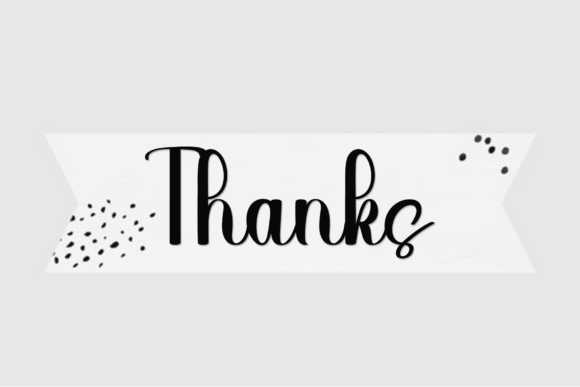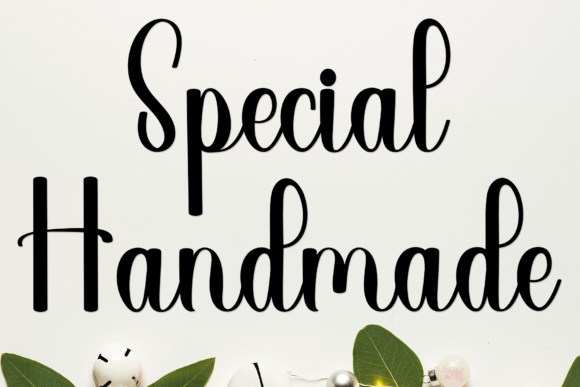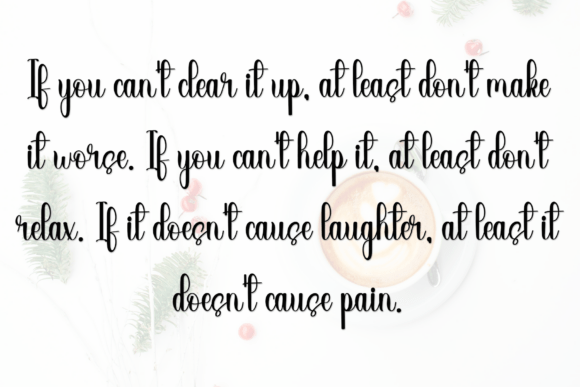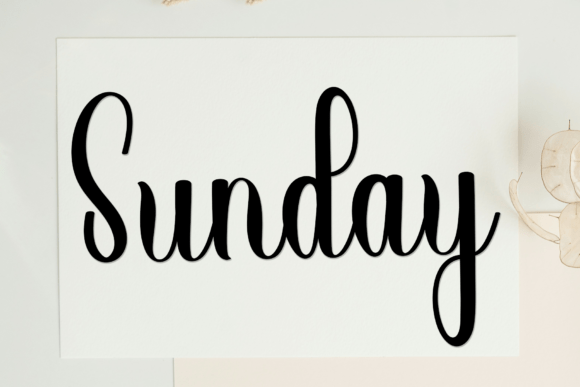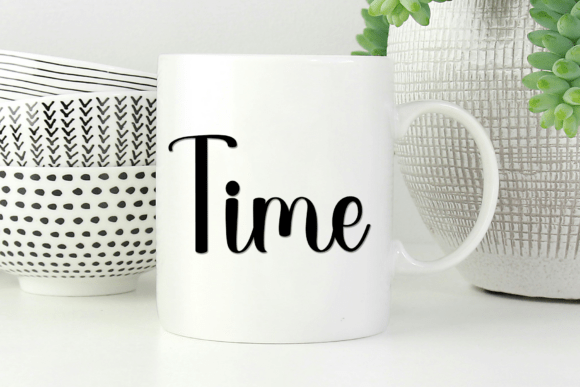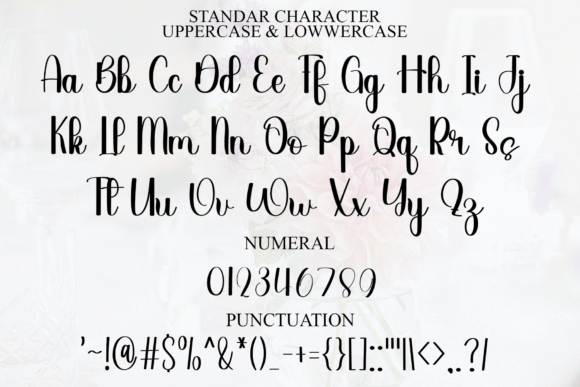
Introducing Enchanting Font: Elevate Your Designs with Elegance and Sophistication
In the world of typography, few fonts manage to capture the essence of natural calligraphy while exuding a sense of sophistication and professionalism. Enchanting, a modern handmade font, achieves this delicate balance with remarkable finesse. Its unique blend of elegance and intimacy makes it an ideal choice for designers and crafters looking to add a touch of luxury to their creations.
The Characteristics of Enchanting Font
Enchanting Font is distinguished by its tall, graceful ascenders and a rhythmic, flowing baseline that perfectly captures the rhythm of natural calligraphy. This harmonious combination lends a soft, poetic touch to every word, making it an exceptional choice for a variety of design applications. Whether you’re working on luxury branding, wedding stationery, artisanal labels, or ethereal social media content, Enchanting brings a level of sophistication that is hard to match.
Blending Intimacy with Professionalism
One of the standout features of Enchanting Font is its ability to blend the intimacy of handwriting with a clean, professional finish. This balance is crucial for designers who want to create a personal connection with their audience without compromising on quality and legibility. The font’s natural flow and elegant lines ensure that your narrative feels both timeless and deeply personal, engaging your audience on a more profound level.
Ideal Applications for Enchanting Font
Enchanting Font’s versatility makes it suitable for a wide range of design projects. Here are some of the ideal applications where Enchanting truly shines:
- Luxury Branding: Elevate your brand’s identity with a sophisticated and elegant typeface that communicates refinement and exclusivity.
- Wedding Stationery: Add a romantic and personal touch to wedding invitations, programs, and other stationery with Enchanting’s poetic charm.
- Artisanal Labels: Perfect for crafters and small business owners, Enchanting brings a touch of handmade elegance to product labels and packaging.
- Ethereal Social Media Content: Stand out on social media with a font that exudes a sense of whimsy and sophistication, ideal for bloggers, influencers, and brands looking to create a unique online presence.
Why Choose Enchanting Font?
With so many fonts available, why choose Enchanting for your design projects? Here are a few compelling reasons:
- Unique Aesthetic: Enchanting offers a distinctive look that sets it apart from more traditional fonts, giving your designs a competitive edge.
- Versatility: Its adaptability makes it suitable for a wide range of applications, from digital content to print materials.
- Emotional Connection: The font’s ability to convey a sense of intimacy and sophistication helps create an emotional connection with your audience, enhancing the impact of your message.
Tips for Using Enchanting Font Effectively
To get the most out of Enchanting Font, consider the following tips:
- Pair with Complementary Fonts: Combine Enchanting with simpler fonts to create visual interest and hierarchy in your designs.
- Experiment with Colors: While Enchanting looks stunning in classic black and white, don’t be afraid to experiment with colors that complement its elegant feel.
- Pay Attention to Spacing: Ensure that your text is well-spaced to maintain the font’s natural flow and readability.
Enchanting Font is a modern handmade font that offers a perfect blend of elegance, intimacy, and professionalism. Its unique characteristics make it an exceptional choice for designers and crafters looking to add a touch of sophistication to their creations. Whether you’re working on luxury branding, wedding stationery, or social media content, Enchanting is sure to cast a spell of sophistication over your designs. Discover the enchanting world of typography and elevate your designs to new heights of elegance and charm.